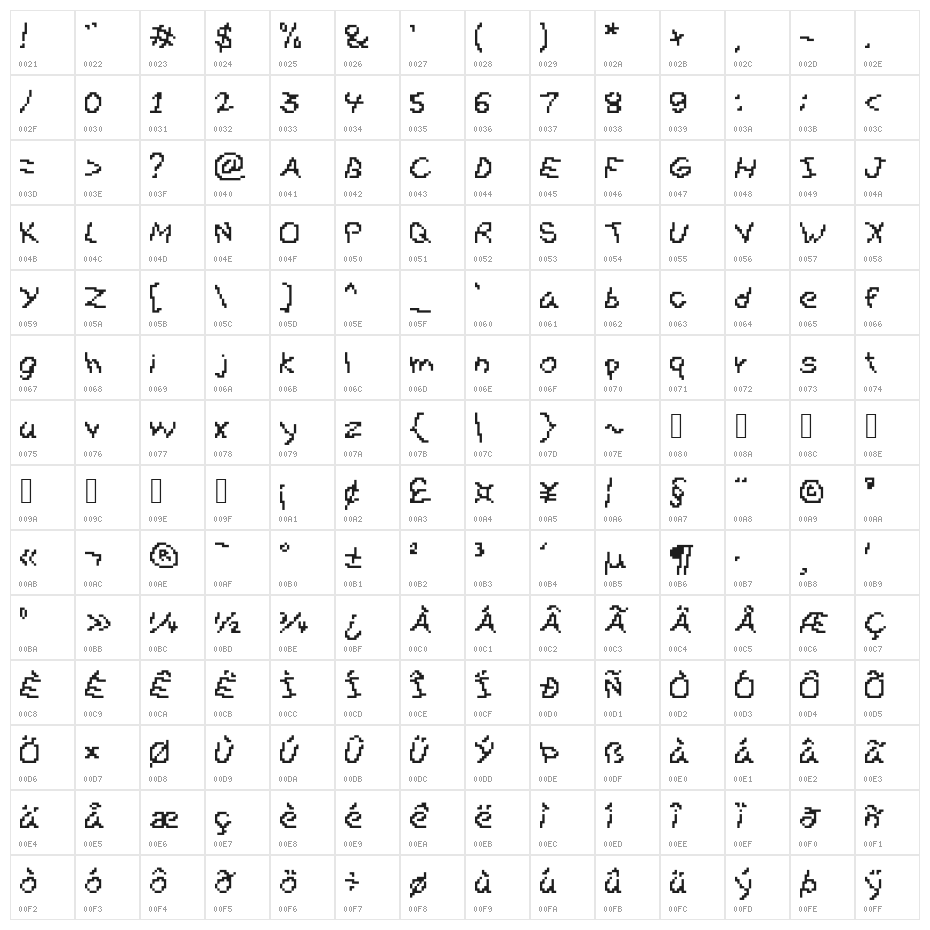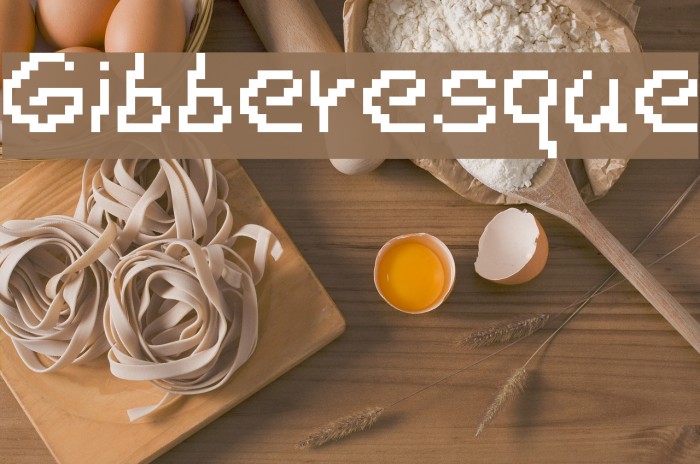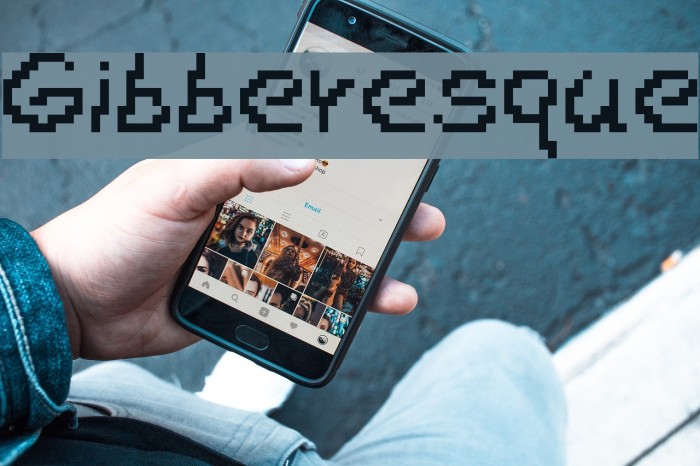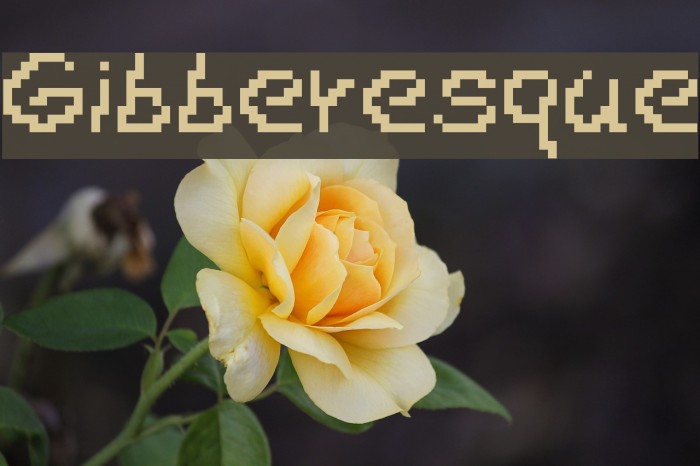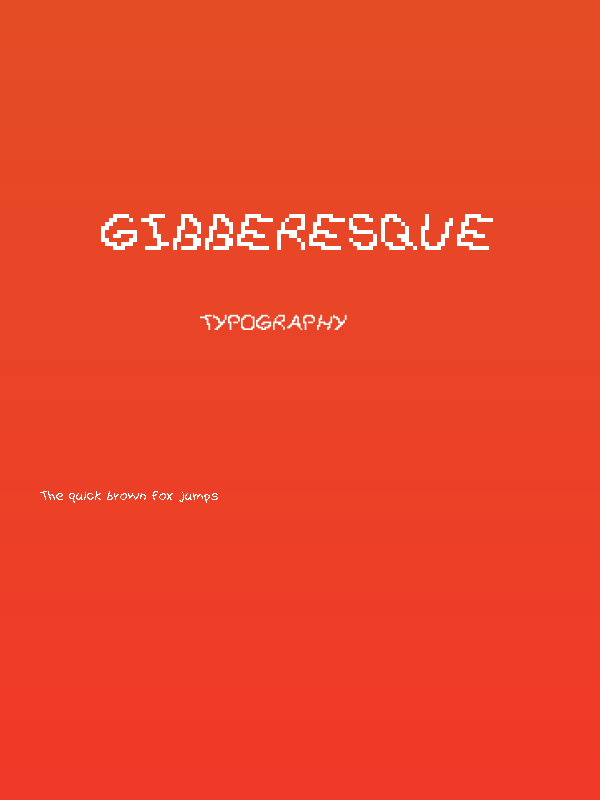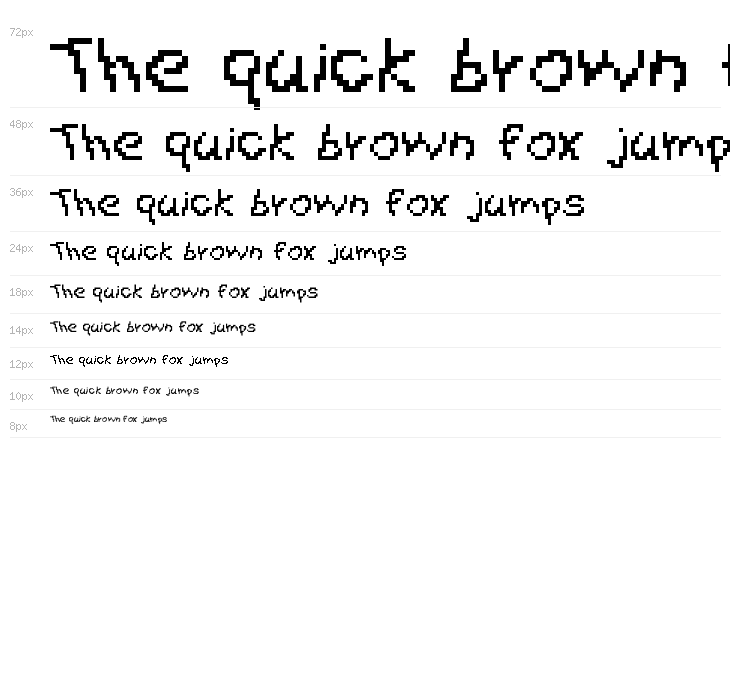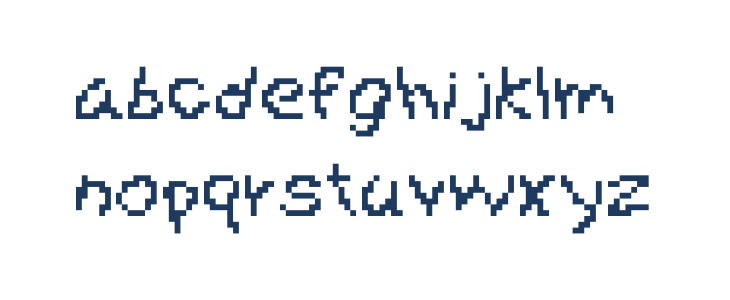
Gibberesque Font
Gibberesque Description
This font features a playful and quirky design with a pixelated, hand-drawn appearance. Each character is uniquely crafted with uneven lines, giving it a dynamic and energetic feel. The uppercase and lowercase letters maintain a consistent style, while numbers and special characters are designed to match the overall aesthetic. The font's irregular strokes and jagged edges contribute to its distinctive and whimsical look, making it stand out in any design project. Its unconventional style is perfect for creative and informal applications, adding a touch of fun and spontaneity.
Proposed ProjectsIdeal for video game graphics, children's books, creative posters, and informal branding.